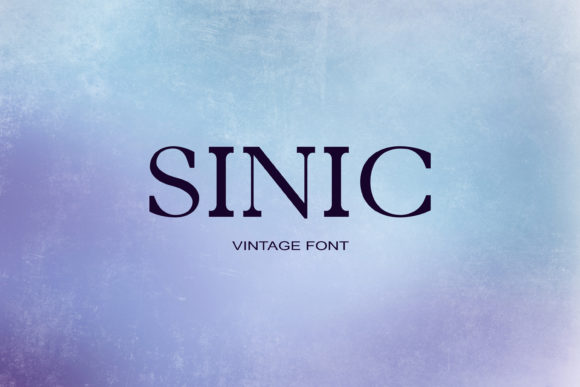
Dive into the world of typography with Sinic, a breathtaking serif font family that exudes elegance, sophistication, and charm. Step into a realm of artistic expression where creativity knows no bounds. Unleash your imagination and let the smooth, flowing curves of Sinic guide your designs towards greatness.
Experience the beauty of classic typography reimagined with a modern twist. Sinic's meticulously crafted characters bring a sense of timeless appeal to your projects, ensuring they stand out from the crowd. Let the world witness your impeccable taste as you weave words together with grace and finesse.
Unlock the power of versatility with Sinic. This font family effortlessly adapts to a wide range of design styles, making it the perfect choice for�らゆるシーン�活��るフォント��。 Whether you're crafting logos, branding materials, invitations, brochures, or social media posts, Sinic has you covered. Its ability to effortlessly elevate your designs makes it a must-have for any creative professional.
Indulge in a symphony of visual pleasure as you explore the intricate details of Sinic. Each letterform is adorned with subtle flourishes and delicate serifs, creating a captivating visual experience that draws the eye and captivates the senses. Let your words dance across the page with an air of sophistication and refinement.
With Sinic by your side, you possess a font that's not just a tool, but an extension of your creativity. Its unique style empowers you to express yourself with confidence and flair, leaving an unforgettable impression on your audience. Embrace the boundless possibilities and let Sinic transform your designs into masterpieces.